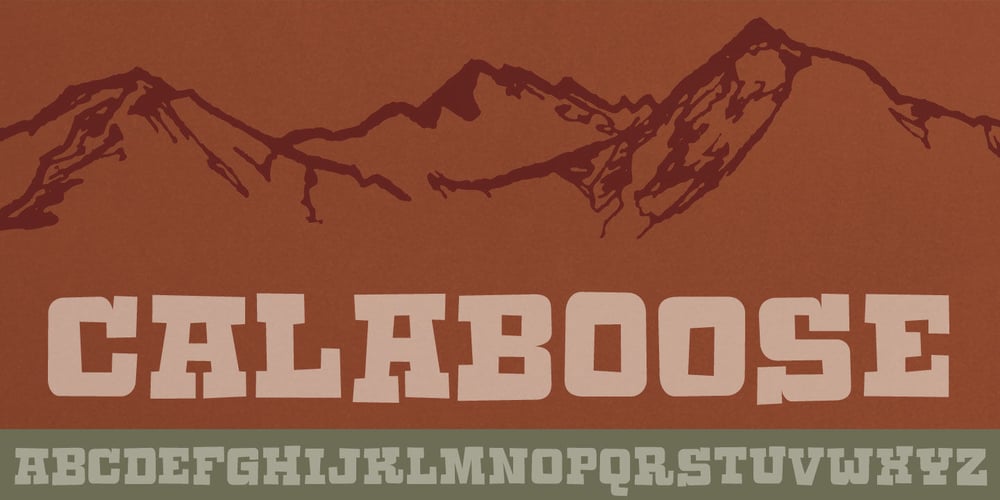
Calaboose Font Family was designed by Jakob Fischer and published by PizzaDude.dk. Calaboose contains 3 styles and family package options. Howdy partner! This is my cowboy font, and it’s called “Calaboose”! Use it for headlines and short messages that needs that western look. Calaboose is cowboyslang for prison – but don’t worry, you won’t get arrested for being a cityslicker using the four versions of this grafitti(!) inspired western font! All versions of Calaboose come with ligatures for double letters and alternate characters! Don’t be a half-wit…pony up and git this font – and it doesn’t even cost you a handful of dollars!